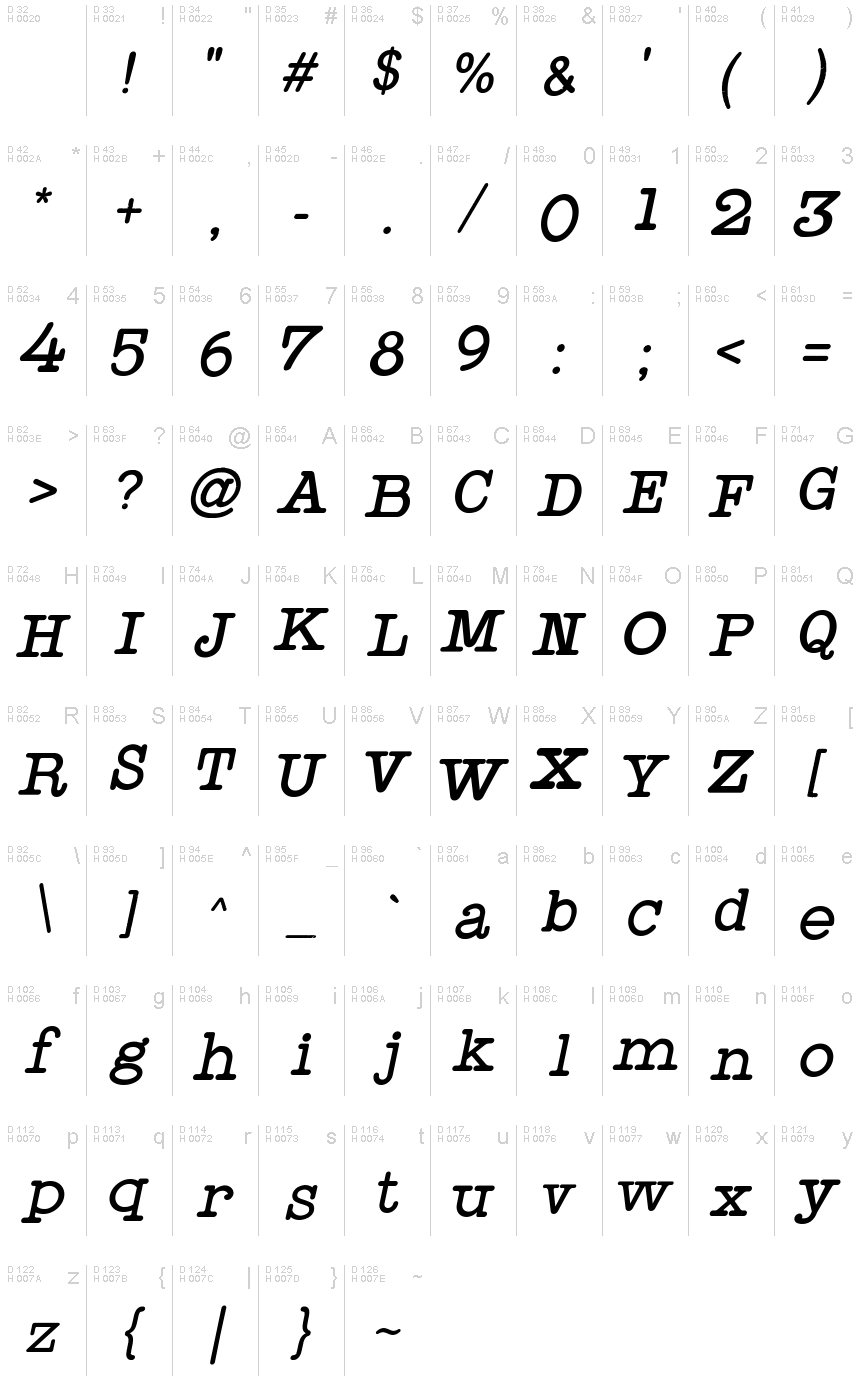
Typewriter Style Italic
Typewriter Style Italic, a captivating display font designed by Galdino Otten Fonts, evokes a nostalgic aura with its distinct typewriter-inspired aesthetic. This font's elegant italic strokes and slightly uneven character forms lend a charming, handcrafted feel, perfect for projects seeking a touch of vintage flair.
The Typewriter Style Italic font's versatility shines through, making it a versatile choice for a wide range of design applications. From retro-inspired branding and packaging to editorial layouts and event materials, this font's unique character can elevate any project with its timeless appeal and captivating personality.